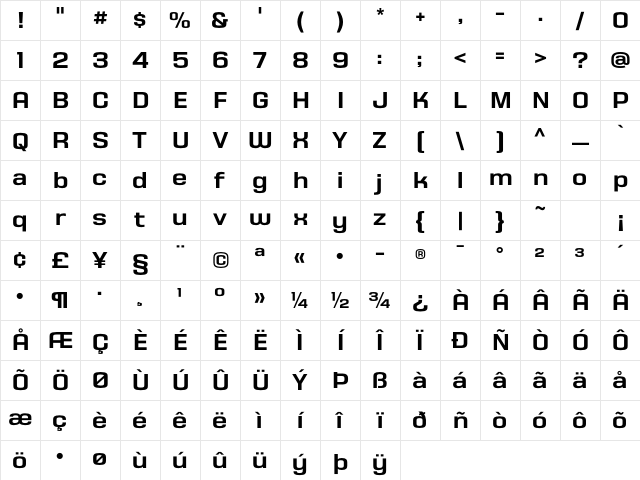
HouseGothicHG23Text Bold Free Font
HouseGothicHG23Text Bold
Designer: Allen Mercer/Tal Leming
Design Context for HouseGothicHG23Text
HouseGothicHG23Text takes a clean, functional approach - its unadorned letterforms prioritise legibility and work reliably across screen and print environments. Its bold stroke weight gives it real presence on the page.
Font Pairing: Use HouseGothicHG23Text for headlines alongside a lighter-weight sans or serif for body copy to establish clear visual hierarchy.
Pro Tip: Use HouseGothicHG23Text for UI labels, navigation, and short-form body copy where clean legibility is the priority.